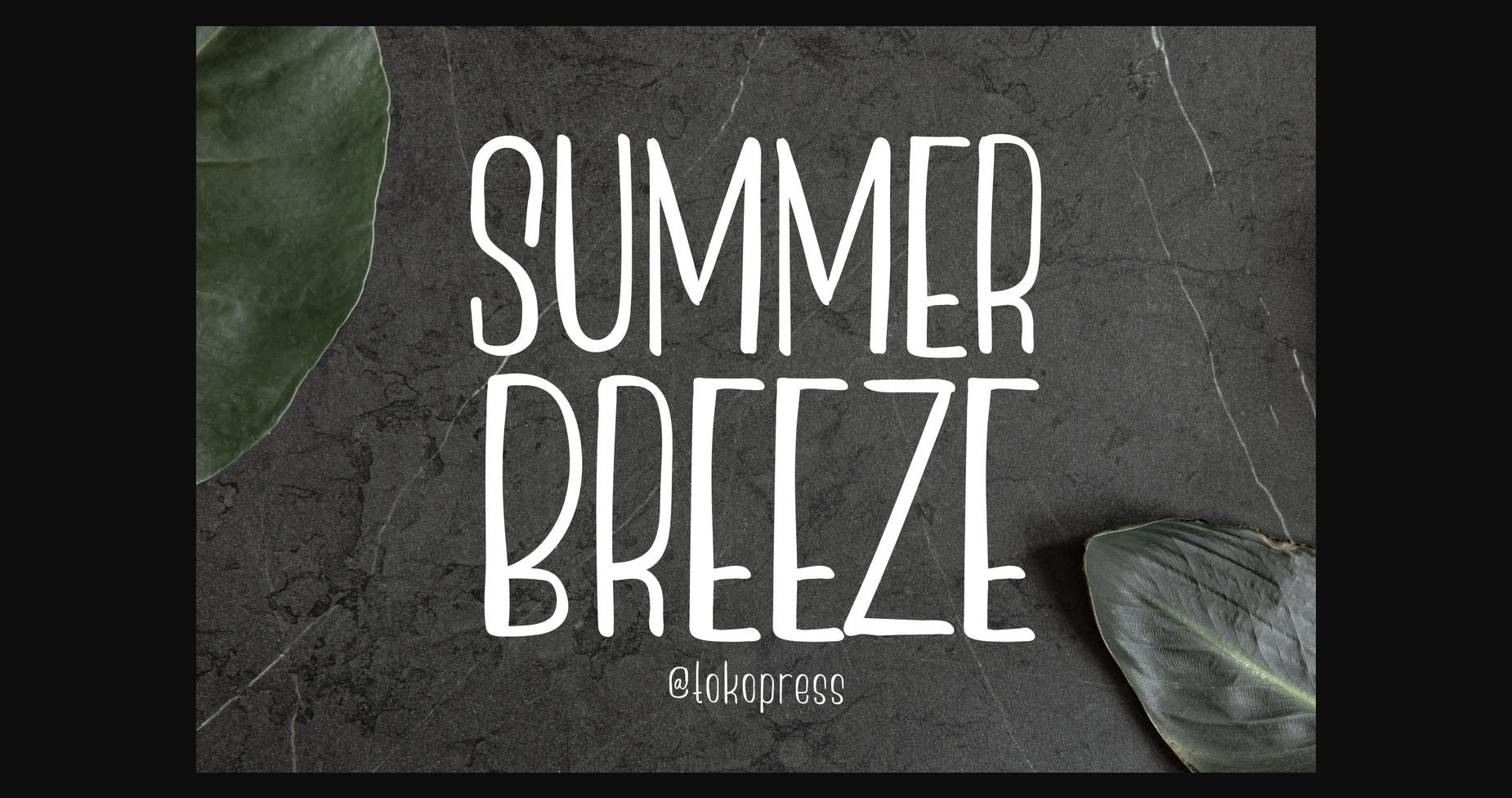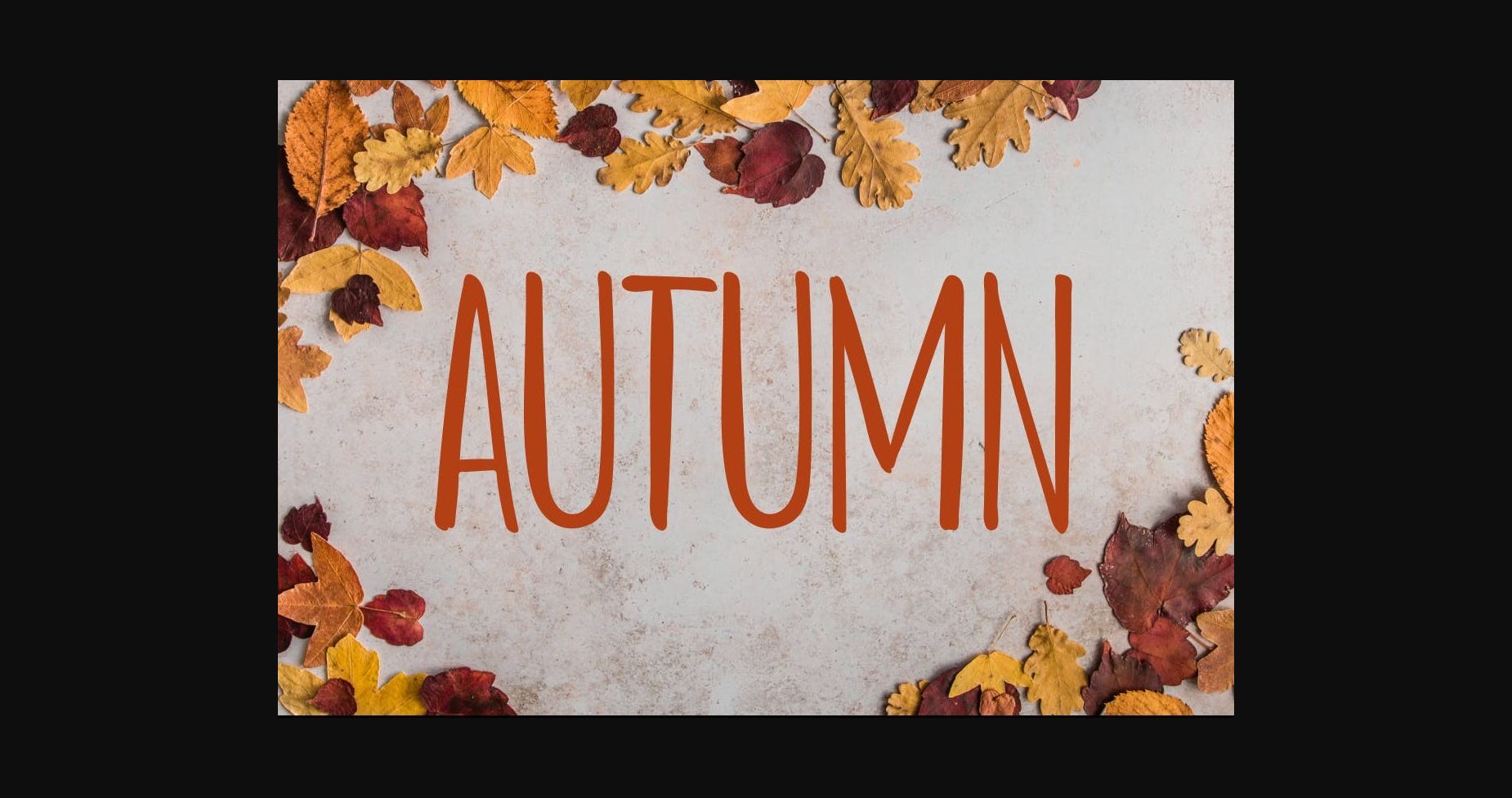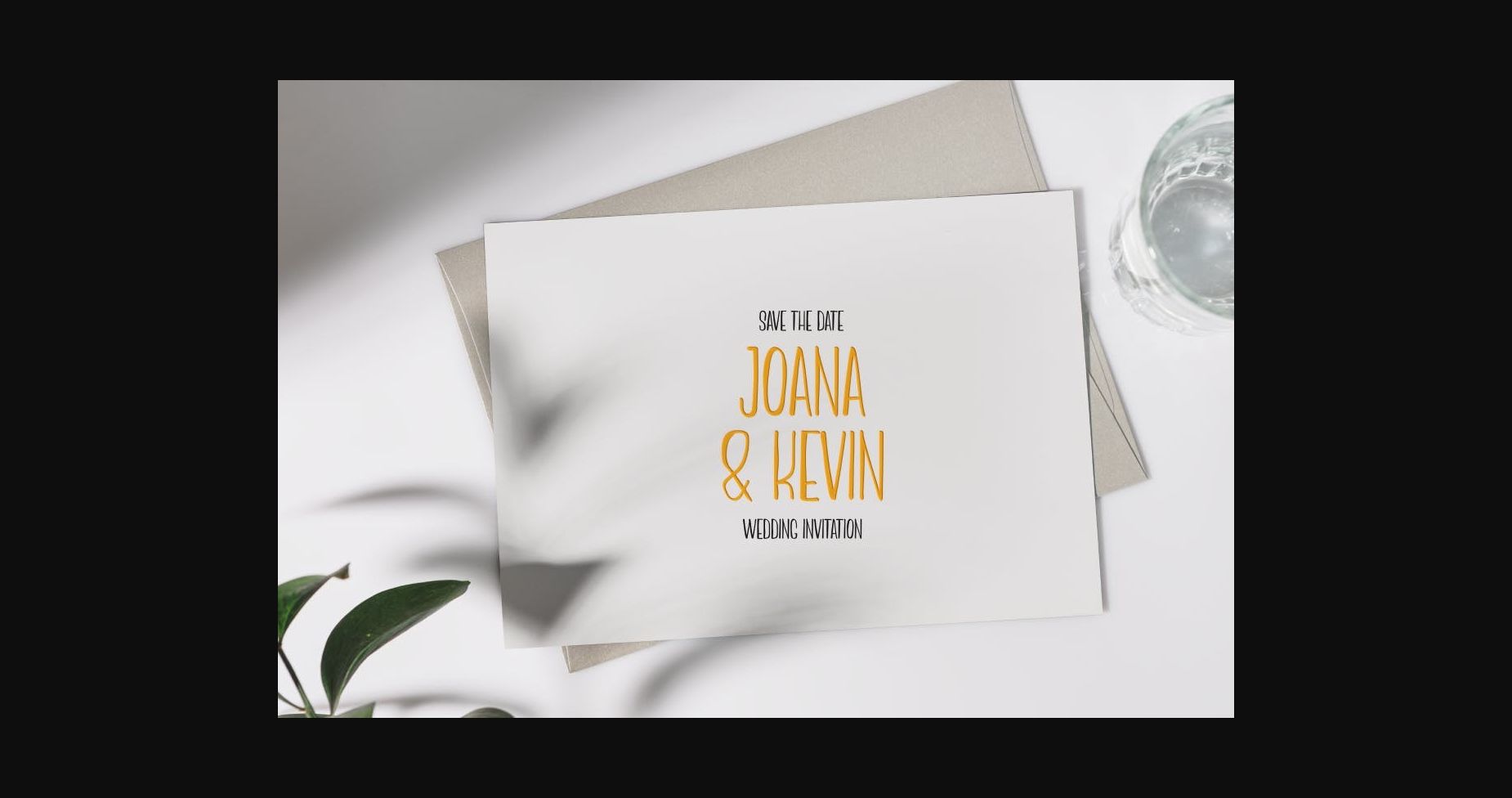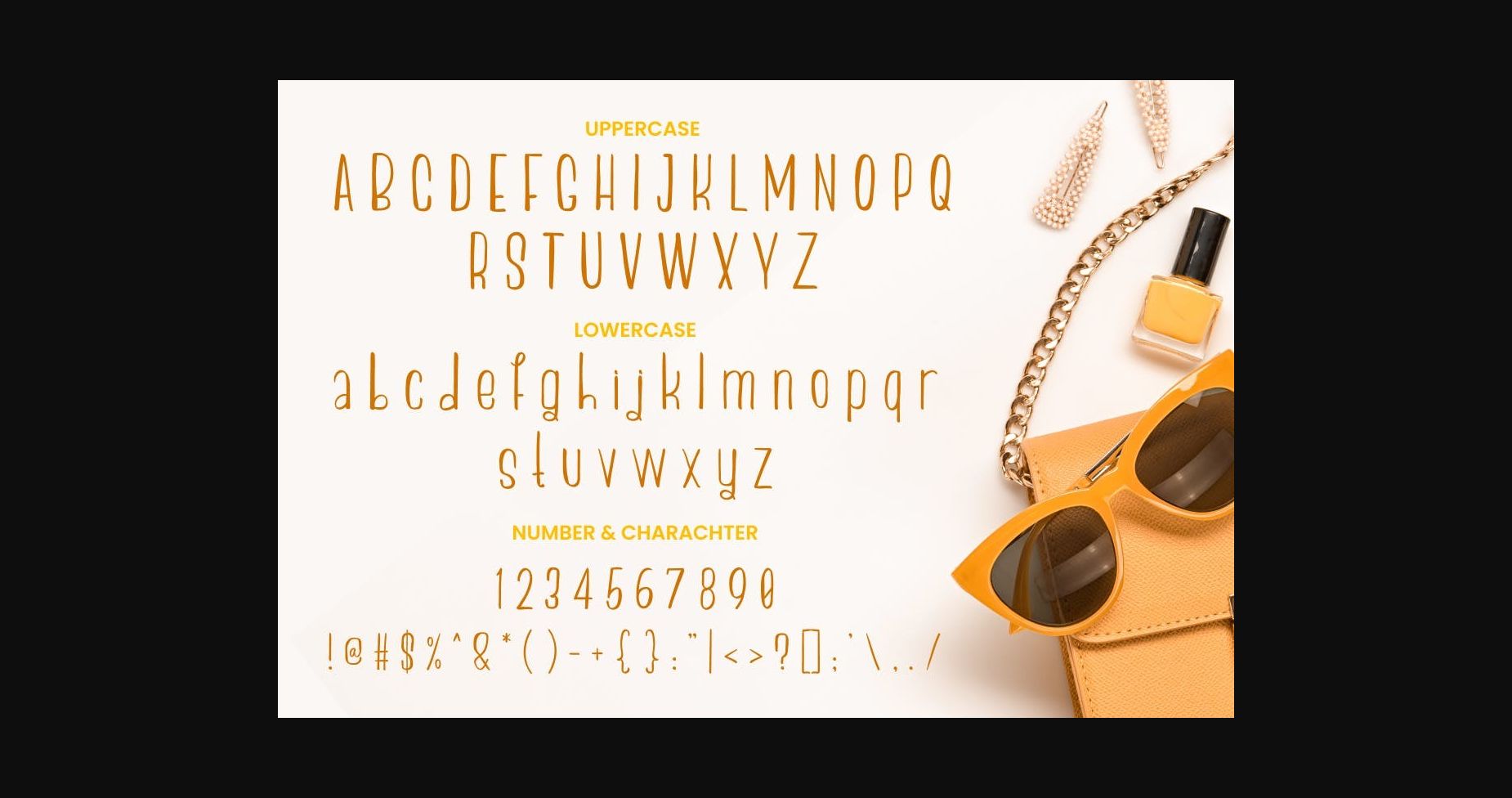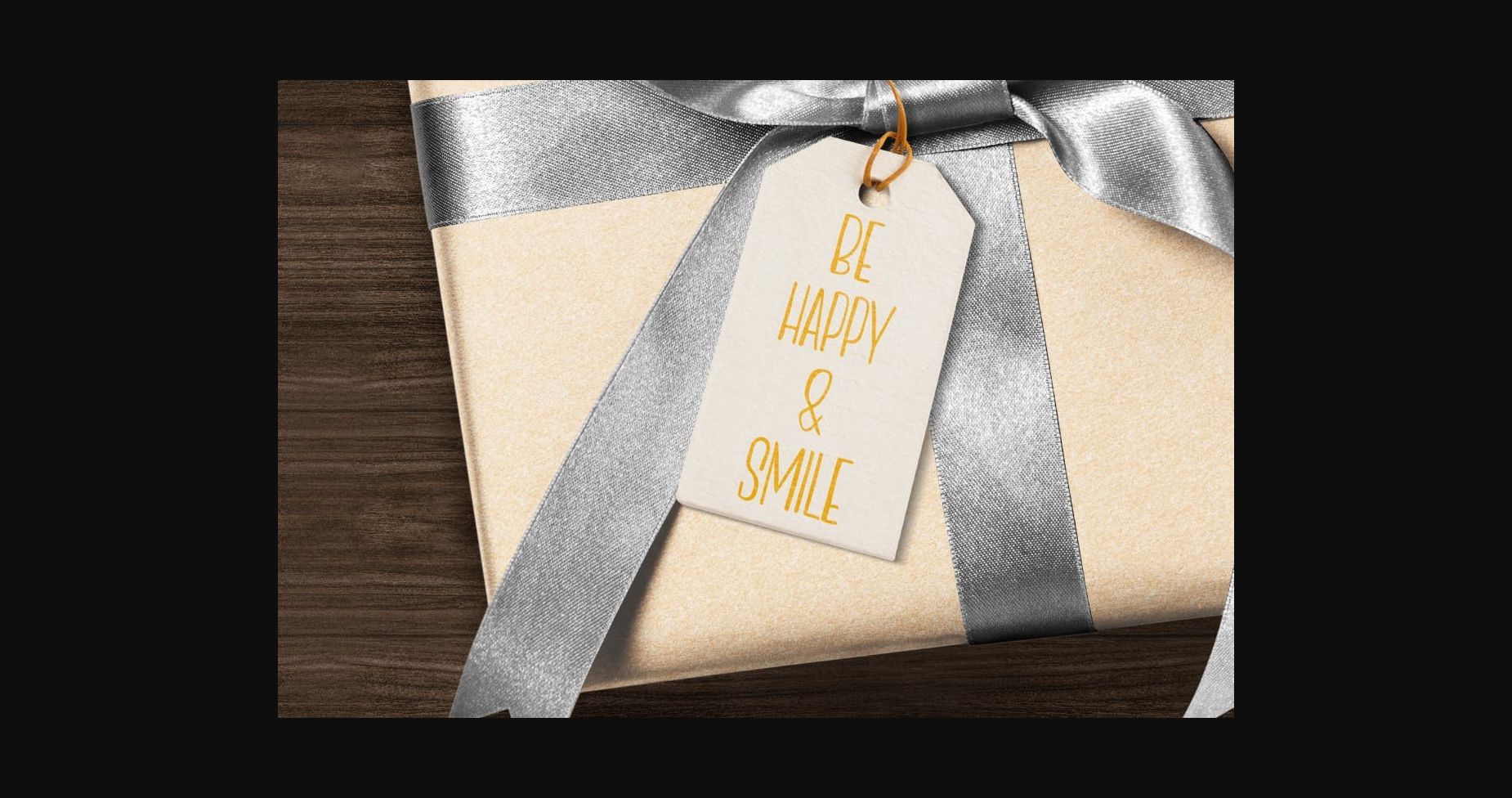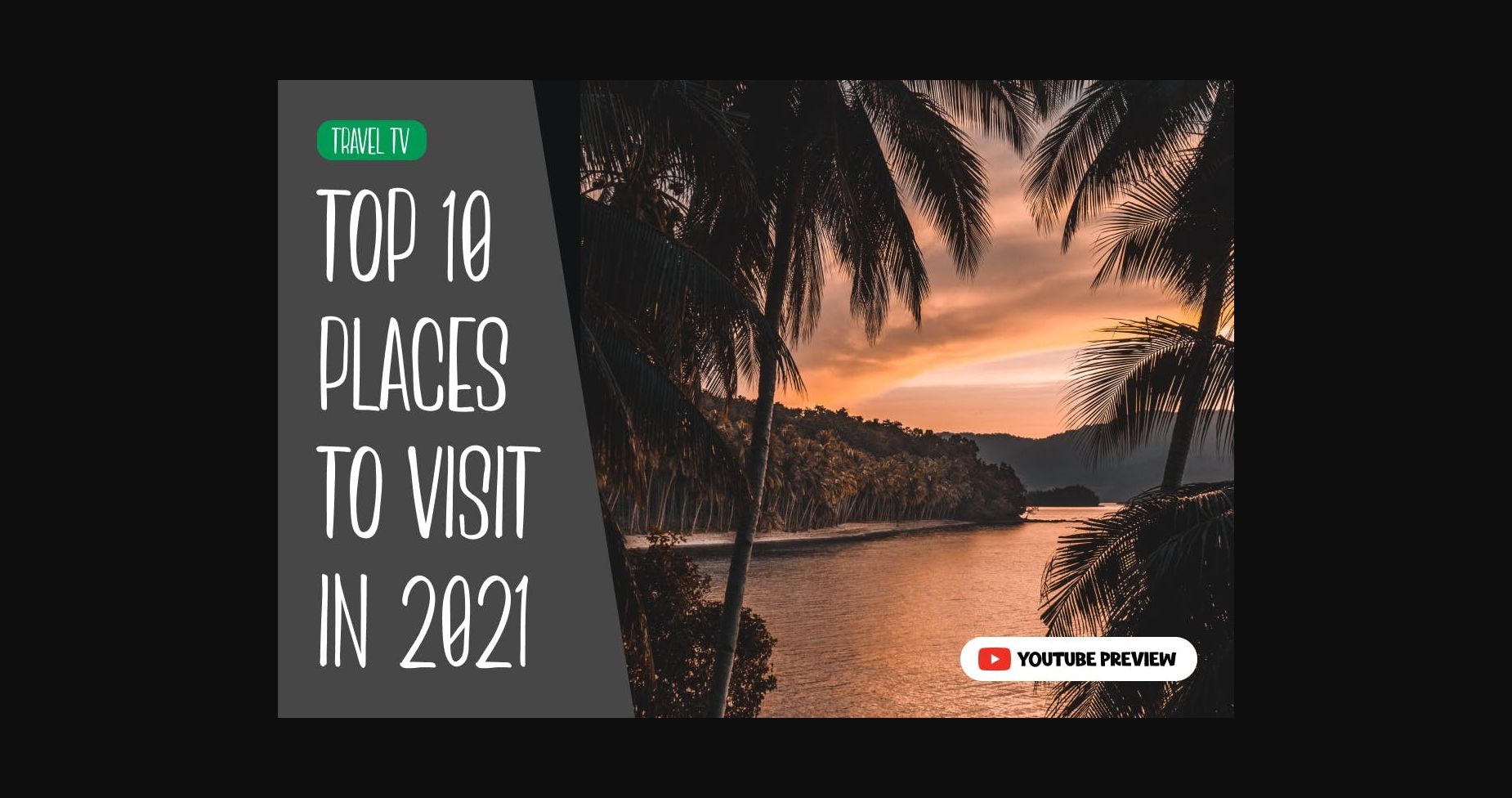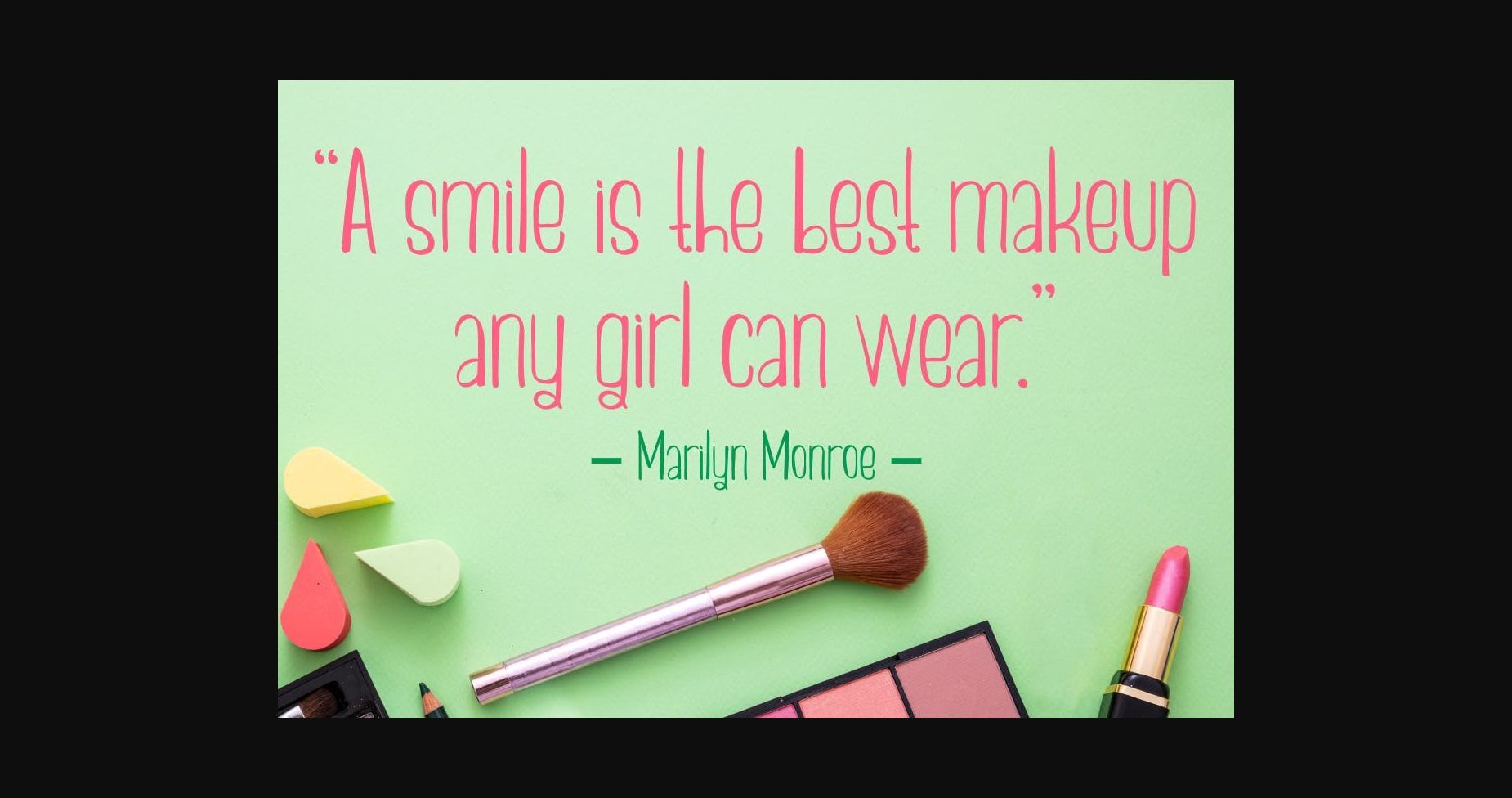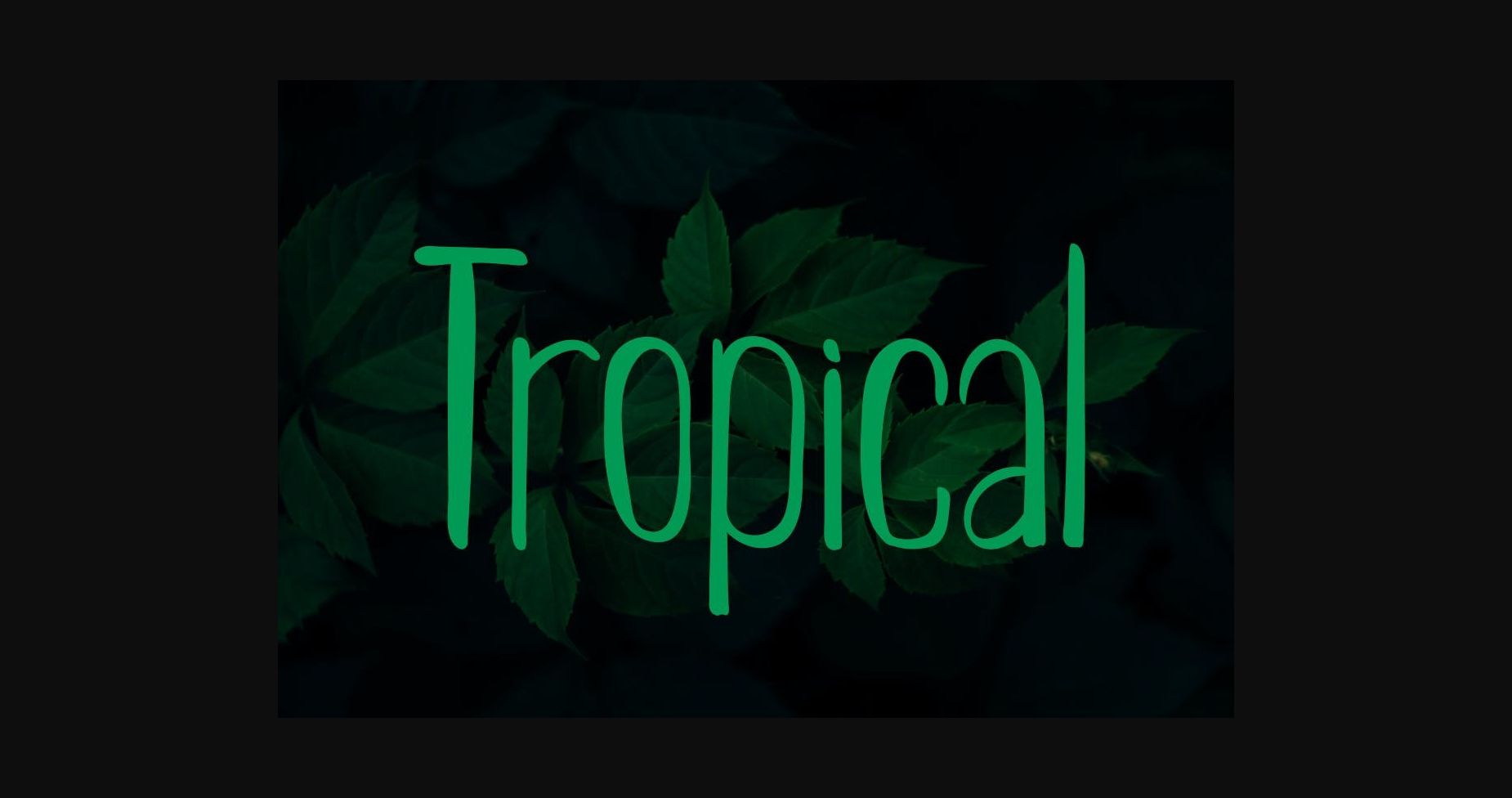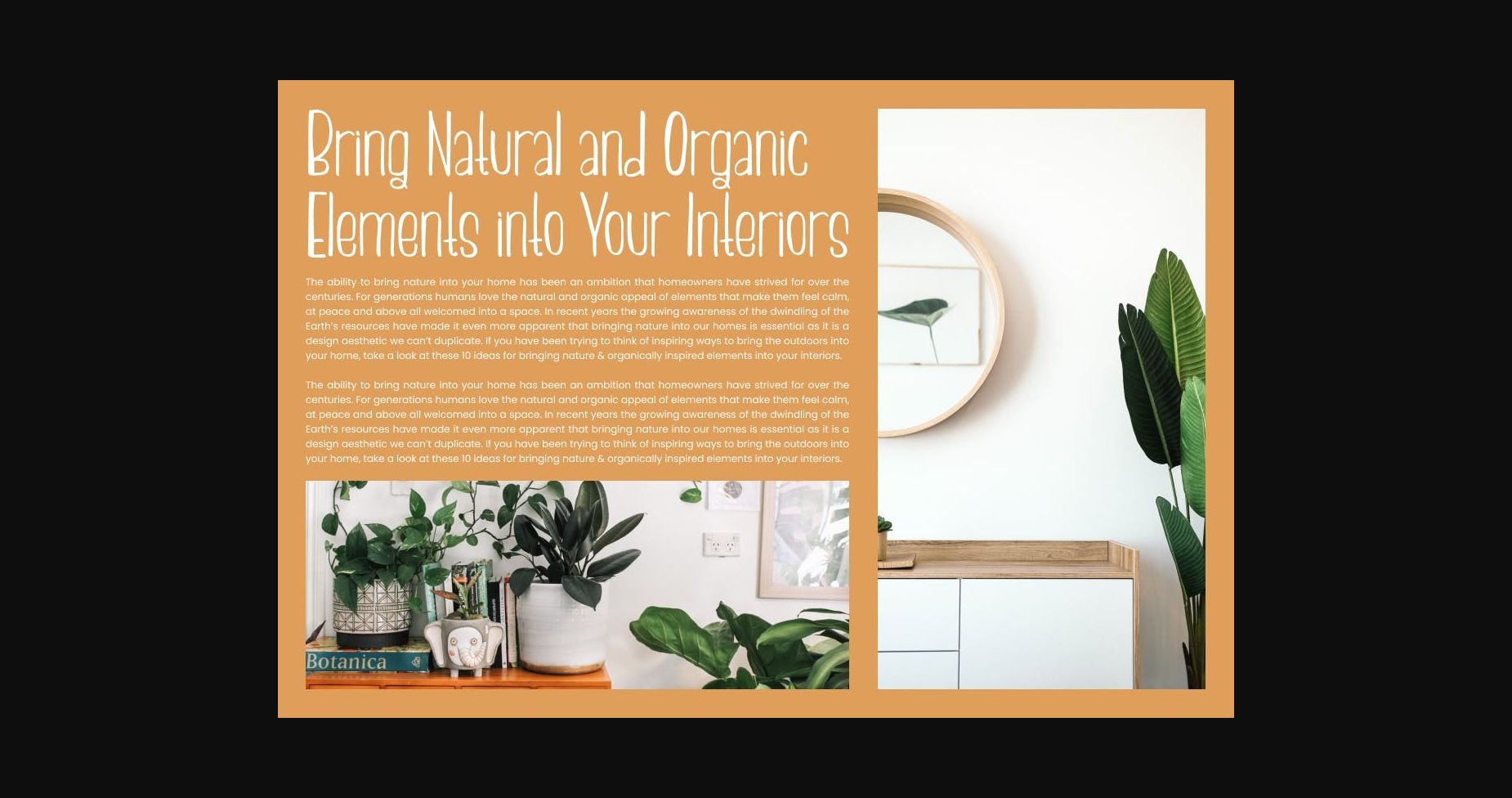
Summer Breeze Font
About Summer Breeze Font
Summer Breeze is a cool, tall and adaptable sans serif font. No matter the topic, this font will be an incredible asset to your fonts’ library, as it has the potential to elevate any creation.